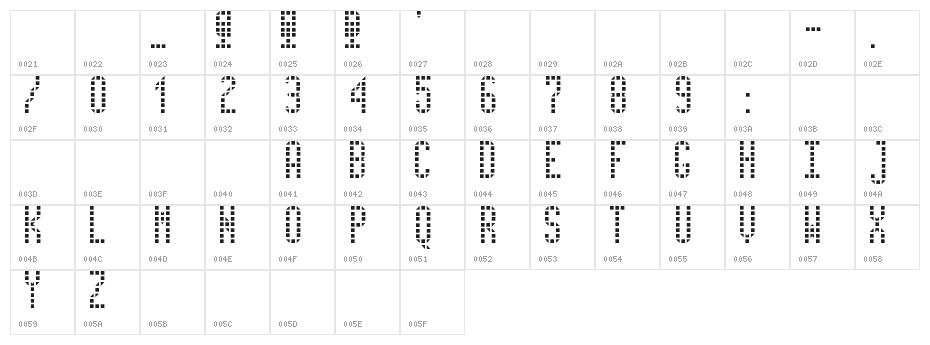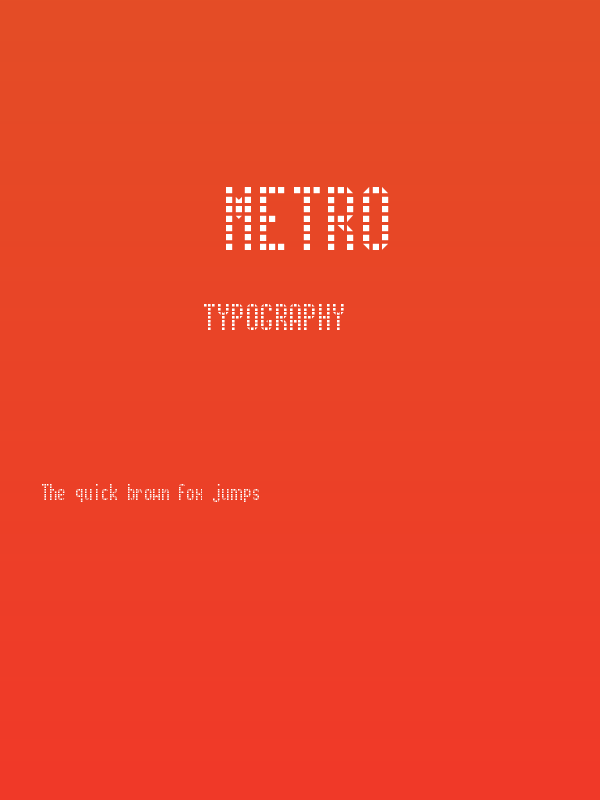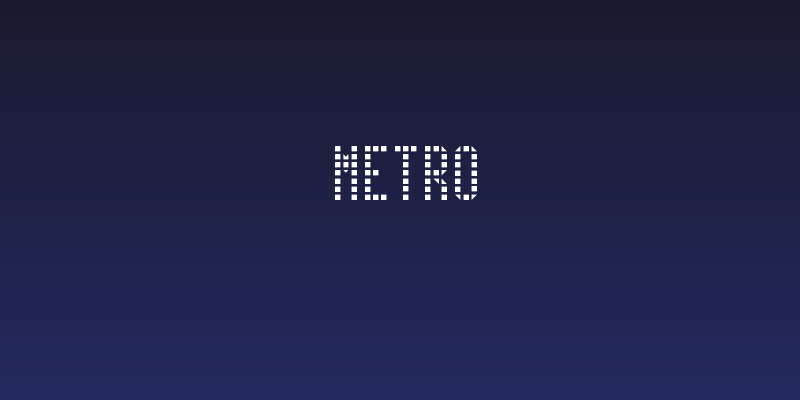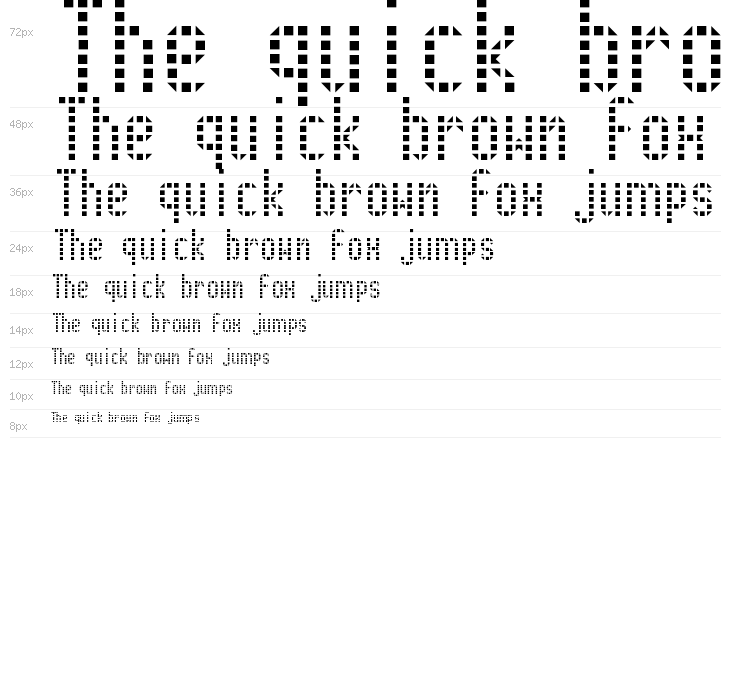
metro Font
metro Description
This font is a unique and modern display typeface characterized by its dotted, pixelated appearance. Each character is constructed from a series of small, evenly spaced squares, creating a digital or technological aesthetic. The uppercase and lowercase letters maintain a consistent geometric structure, while the numbers and special characters follow the same design principle, ensuring uniformity across the typeface. The font's distinct style makes it highly suitable for projects that require a futuristic or digital theme. Its bold and striking appearance ensures high visibility and readability, making it ideal for headlines or attention-grabbing text.
| Use Case | Headlines, Logos, Digital Art |
| Proposed Projects | Ideal for digital art, tech-themed designs, video game graphics, and futuristic branding. |